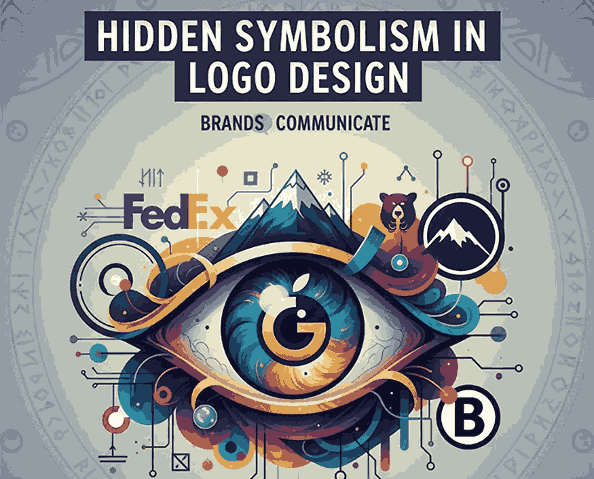
1. Introduction
Hidden Symbolism Logo Design are far more than simple graphic marks—they are visual storytellers.Behind many famous brand logos lies a layer of Hidden Symbolism Logo Design—clever design choices that communicate deeper meanings without a single word.
From arrows hidden in letters to symbols that represent heritage, culture, or innovation, the concept of hidden symbolism in logo design has become one of the most powerful tools in visual branding.
In this article, we’ll explore how designers use symbolism to elevate a logo’s impact, why these hidden messages matter, and how you can incorporate them into your own creative work.
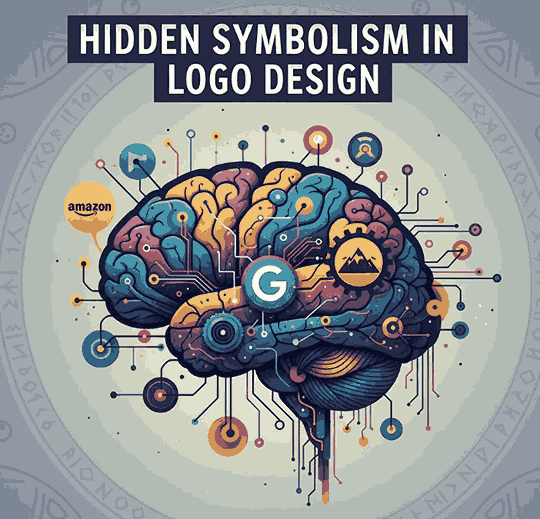
2. Why Matters Hidden Symbolism Logo Design
Symbolism gives a logo emotional depth and helps audiences connect with a brand’s identity on a subconscious level.
A great logo doesn’t just tell people what a brand sells—it tells them who the brand is.
Here’s why symbolism is so powerful:
- Emotional resonance: People remember feelings more than visuals.
- Cultural meaning: Hidden symbols can reflect values, origins, or missions.
- Storytelling potential: Symbolism transforms a simple logo into a narrative tool.
For instance, the arrow in Amazon’s logo doesn’t just connect A to Z—it subtly communicates that Amazon offers everything from A to Z, delivered with a smile.
3. The Psychology Behind Hidden Symbolism Logo Design Meanings
Humans are naturally wired to look for patterns and meanings.
That’s why when people discover a hidden symbol in a logo, they often feel a sense of surprise and delight—a subtle but powerful emotional response that deepens brand loyalty.
Hidden symbols can trigger associations such as:
- Trust (through geometric balance)
- Movement (through arrows or forward shapes)
- Innovation (through abstract or layered meanings)
- Heritage (through cultural or historical motifs)
Designers who understand visual psychology can use these cues to create logos that communicate values instantly, even before words are read.
4. Famous Examples of Hidden Symbolism Logo Design
Let’s look at some of the world’s most iconic examples of hidden symbolism in logo design:
4.1 FedEx
One of the most famous examples—the arrow hidden between the “E” and “x” symbolizes speed, precision, and forward movement.
4.2 Amazon
The arrow pointing from A to Z forms a smile, suggesting customer satisfaction and a wide range of products.
4.3 Toyota
Each overlapping ellipse in Toyota’s logo represents the heart of the customer, the heart of the product, and the heart of technological progress.
4.4 Toblerone
Hidden in the mountain logo is a bear silhouette, representing the Swiss city of Bern, also known as the “City of Bears.”
4.5 Baskin Robbins
The logo cleverly highlights the number 31—referring to its original 31 ice cream flavors—within the initials “BR.”
Each of these designs tells a story through subtle symbolism, making them memorable and meaningful to millions worldwide.
5. How to Create a Hidden Symbolism Logo Design with Meaning
Designing a logo with hidden symbolism requires creativity, research, and restraint.
Here’s how to approach it:
Step 1: Understand the Brand Story
Identify the brand’s core message, mission, and personality. The hidden symbol should reflect an authentic element of that story.
Step 2: Explore Cultural and Visual Metaphors
Use cultural symbols, geometric forms, or letter shapes to embed hidden meanings naturally.
Step 3: Prioritize Simplicity
The best symbolism is subtle and elegant, not forced. It should enhance recognition—not confuse it.
Step 4: Test Recognition
Show your logo to others without context. If they “discover” the hidden element naturally, you’ve struck the perfect balance
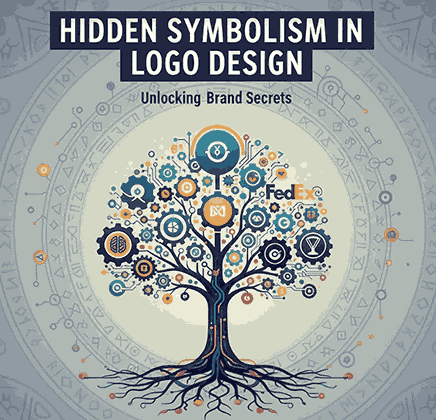
6. The Role of Typography in Hidden Symbolism Logo Design
Typography is often the secret ingredient behind great hidden meanings.
The right font can:
- Suggest personality (modern, classic, playful, or professional)
- Shape perception through line weight, spacing, and form
- Embed visual clues—like arrows, initials, or hidden icons—into letterforms
For example, the FedEx arrow exists solely because of the letter spacing in its custom typeface.
Typography doesn’t just convey words—it shapes emotion and symbolism.
That’s why choosing the right font is crucial to making your logo’s hidden meaning truly work.
7. Recommended Fonts for Smart Logo Design